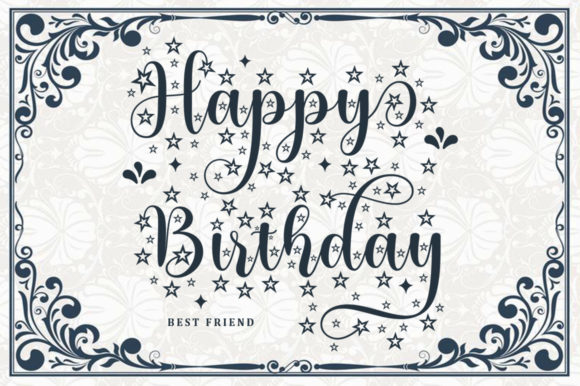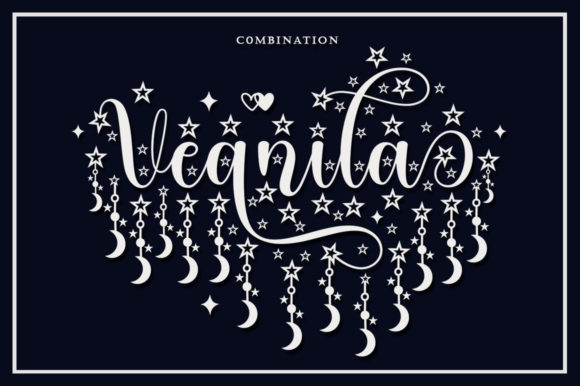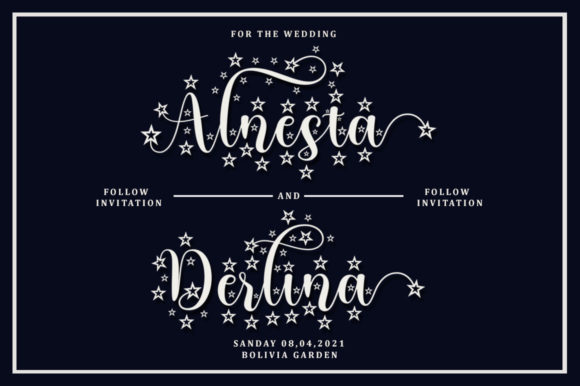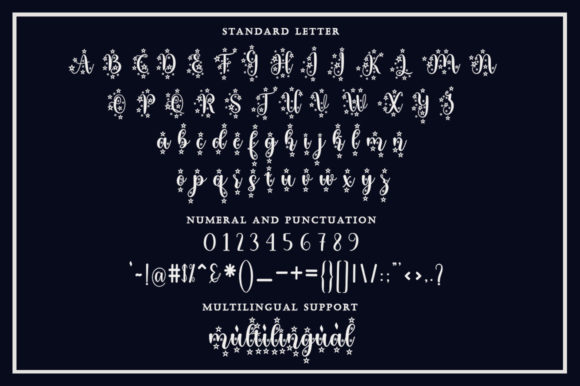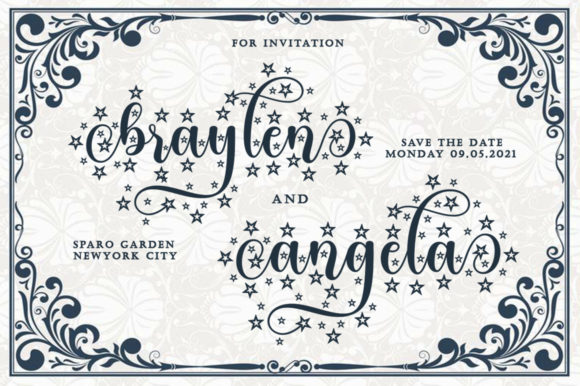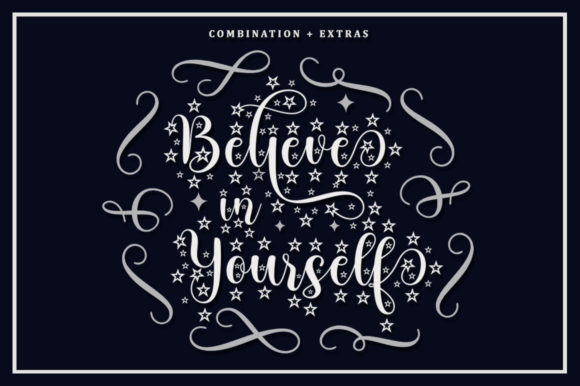
Introduction to Blossom Font Font
Blossom is a lovely and delicate script font that exudes elegance and class.
It is neatly crafted and highly detailed Blossom is PUA encoded which means you can access all of the amazing glyphs and ligatures with ease.